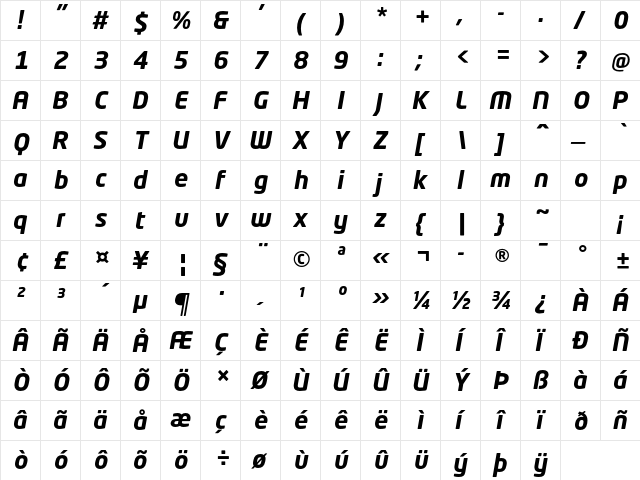
Neo Tech Std Bold Italic Font Preview
Design Context for Neo Tech Std Typeface
Neo Tech Std has a distinctly futuristic character, with geometric precision and clean angles that feel at home in technology, gaming, and sci-fi contexts. Its italic angle brings a sense of urgency and motion to the letterforms. The heavy weight commands attention and anchors typographic hierarchies.
Pro Tip: Try Neo Tech Std with generous letter-spacing in UI labels and navigation — the geometric forms benefit from room to breathe.